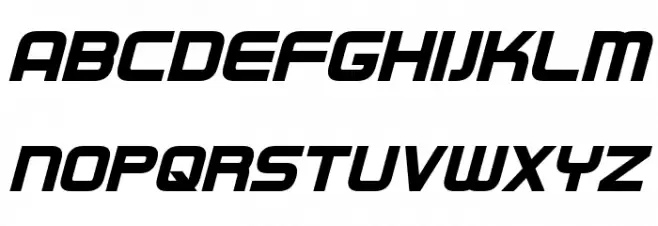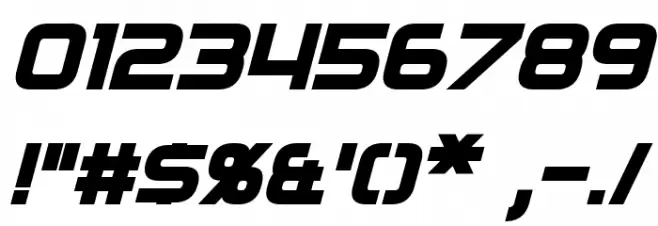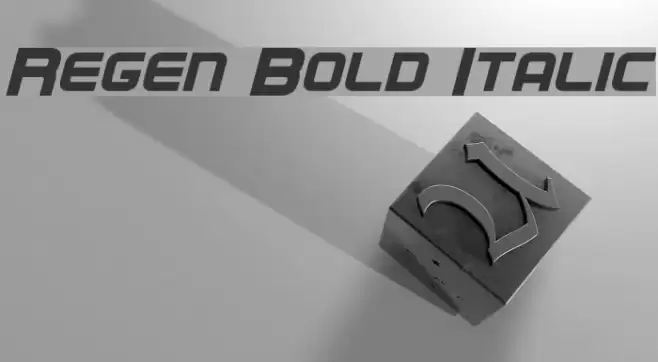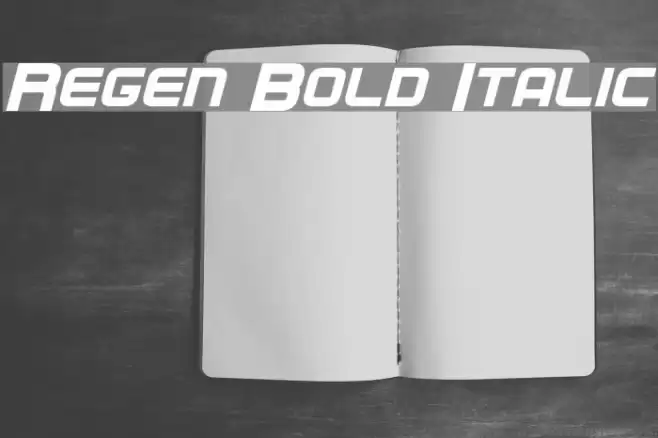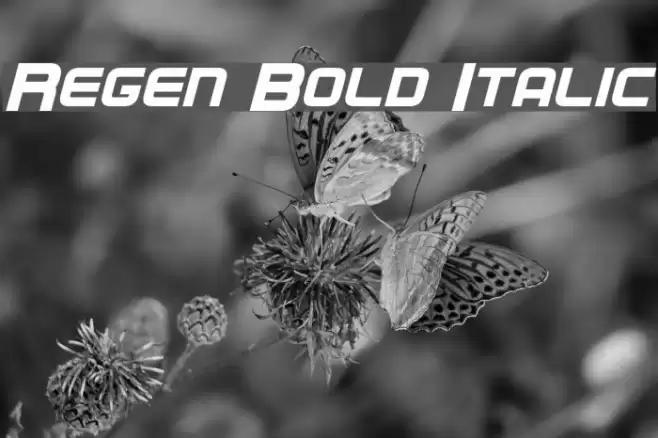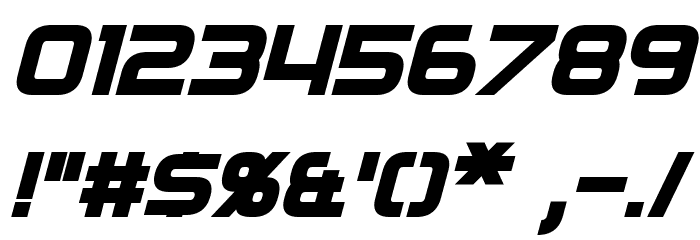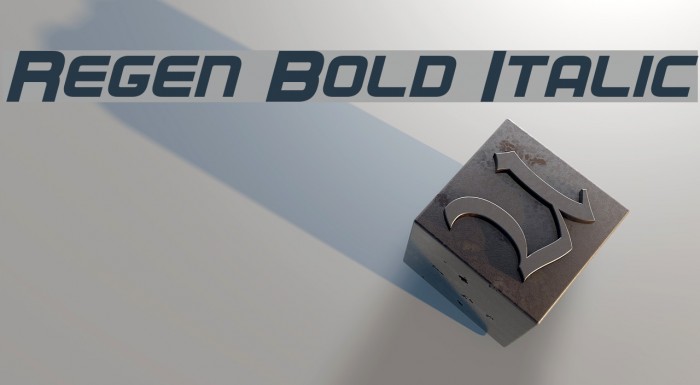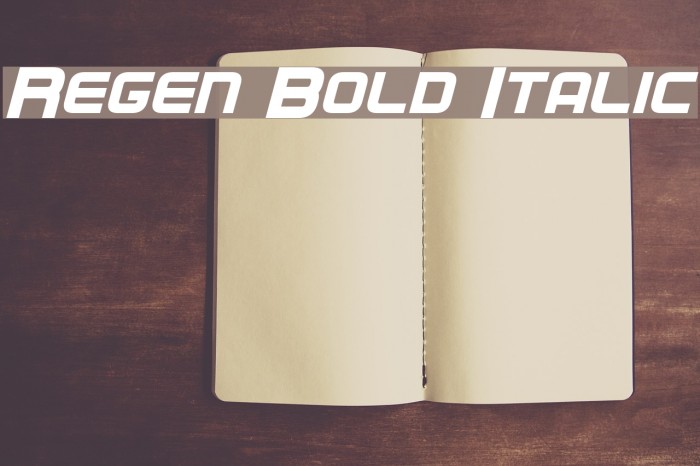
Regen Bold Italic
This font features a bold and italicized style, characterized by its strong, angular lines and dynamic slant. The letters are tightly spaced, creating a compact and cohesive appearance. The design is modern and sleek, with a futuristic feel that is enhanced by the italicization. The bold weight of the font ensures high visibility and impact, making it suitable for attention-grabbing applications. The numbers and special characters maintain the same stylistic elements, ensuring consistency across all glyphs. The overall aesthetic is both professional and edgy, suitable for a variety of contemporary design projects.
A bold, italicized font with a modern, angular design and tight spacing.
- Proposed Projects: Ideal for technology branding, sports team logos, dynamic posters, and modern advertising campaigns.
- Character Spacing: Tight